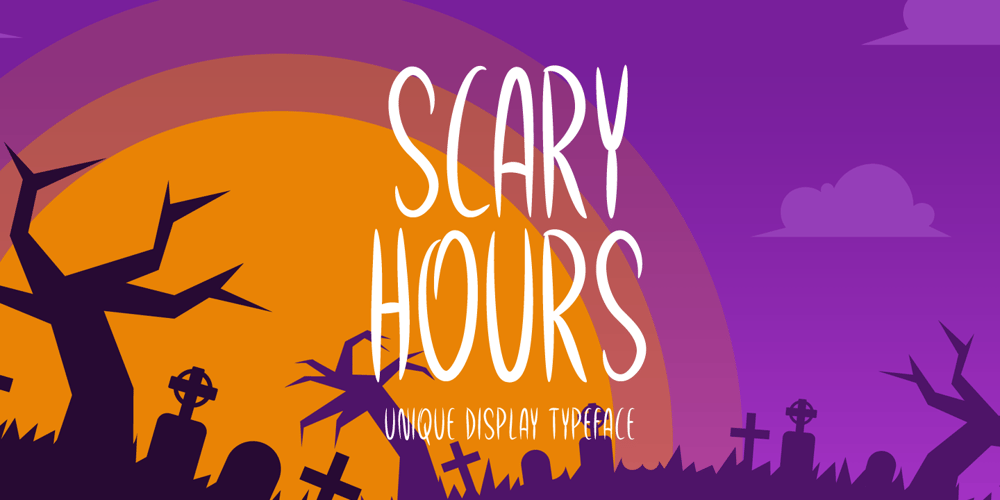
Scary Hours
Scary Hours font
Scary Hours Font Family was designed by Md Shohail Bhuian and published by Seemly Fonts. Scary Hours contains 1 styles and family package options. Scary Hours is a unique and spooky display font. It is perfectly suitable for any Halloween-related project or crafty idea! The only limit is your imagination.